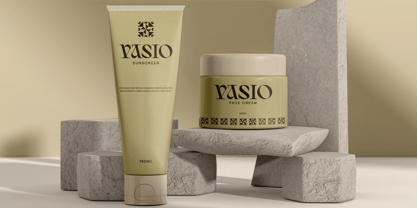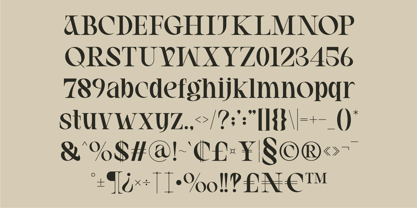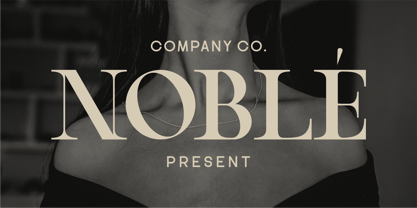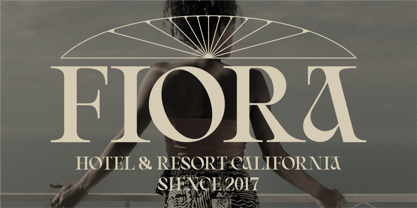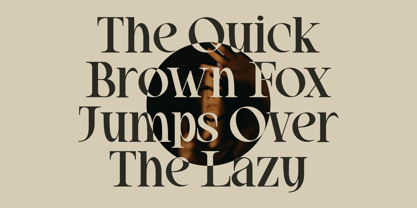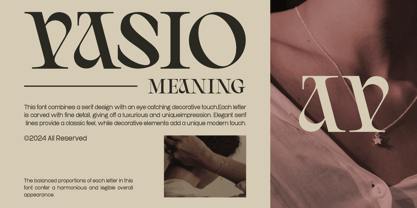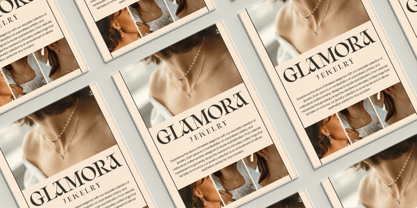
Vasio
by Marvadesign
The Vasio Font Family was designed by Febrie Setiawan and published by Marvadesign. Vasio contains 1 styles. More about this family
Introducing Vasio is a sophisticated display serif typeface that blends classic elegance with contemporary artistic flair. Designed with intricate detailing, each letter showcases a refined balance of traditional serif elements and striking decorative accents, making it an ideal choice for luxury branding, editorial designs, and high-end visual identities.
This font exudes a timeless yet modern aesthetic, characterized by smooth curves, sharp angles, and distinctive letterforms that enhance readability while maintaining an artistic edge. Its deco-inspired style adds a touch of sophistication, reminiscent of vintage typography yet adapted for contemporary use.
With 219 meticulously crafted glyphs, Vasio supports multilingual typography, ensuring versatility for diverse design applications. The font’s structured proportions provide a harmonious and legible appearance, making it suitable for headlines, logos, packaging, and fashion-related materials.
Overall, Vasio embodies a perfect fusion of elegance, creativity, and functionality, catering to designers seeking a refined and expressive typographic solution.